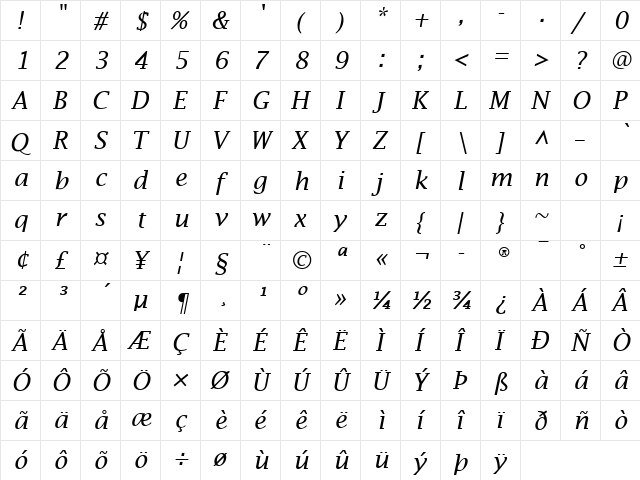
Signs Of Life 2 Italic
Design Context for Signs Of Life 2 Typeface
Signs Of Life 2 takes a measured approach to typography — its balanced proportions and neutral character make it a reliable workhorse for both digital and print work. The dynamic lean of this cut emphasises speed and emphasis in any layout.
Pro Tip: Use Signs Of Life 2 for emphasis, pull quotes, and subheadings where its slanted energy can add rhythm to the layout.